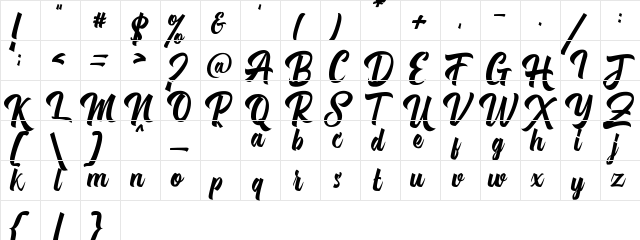
Michail Script Regular
| Foundry | Debut Studio |
| Designer | Debut Studio |
Design Context for Michail Script Typeface
Michail Script brings a calligraphic fluidity to the page — its connecting strokes and expressive curves give it an unmistakably human quality.